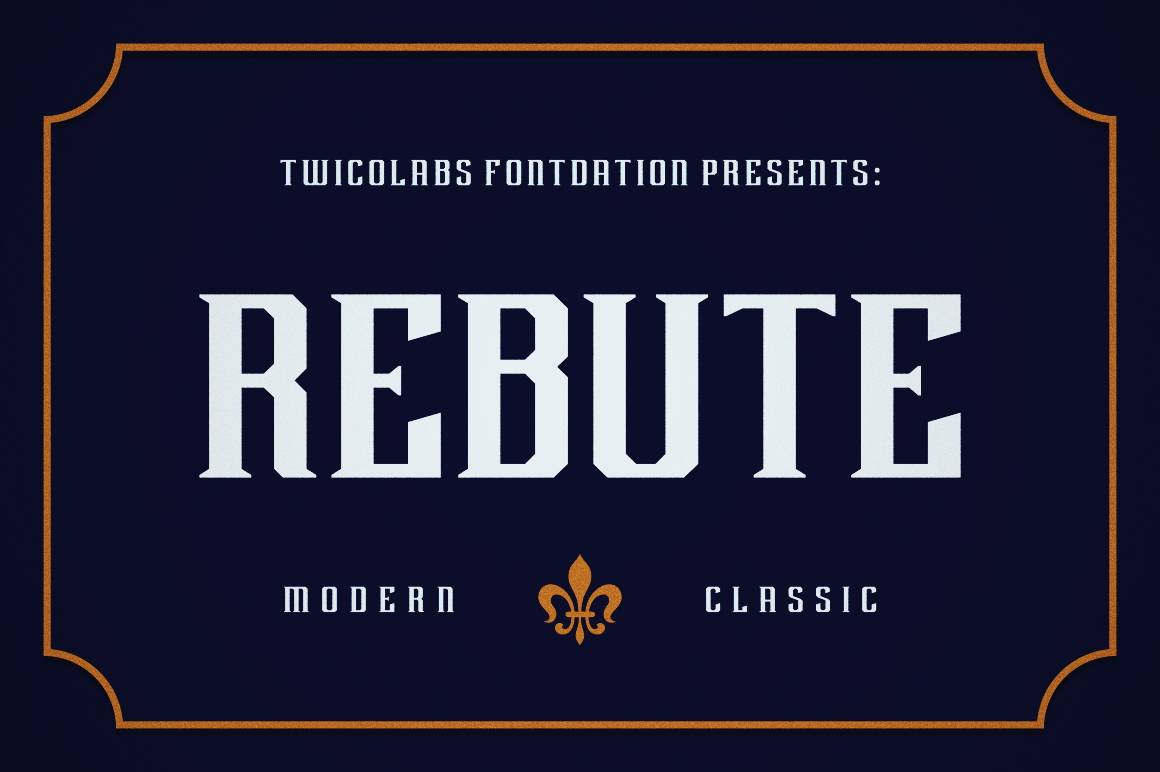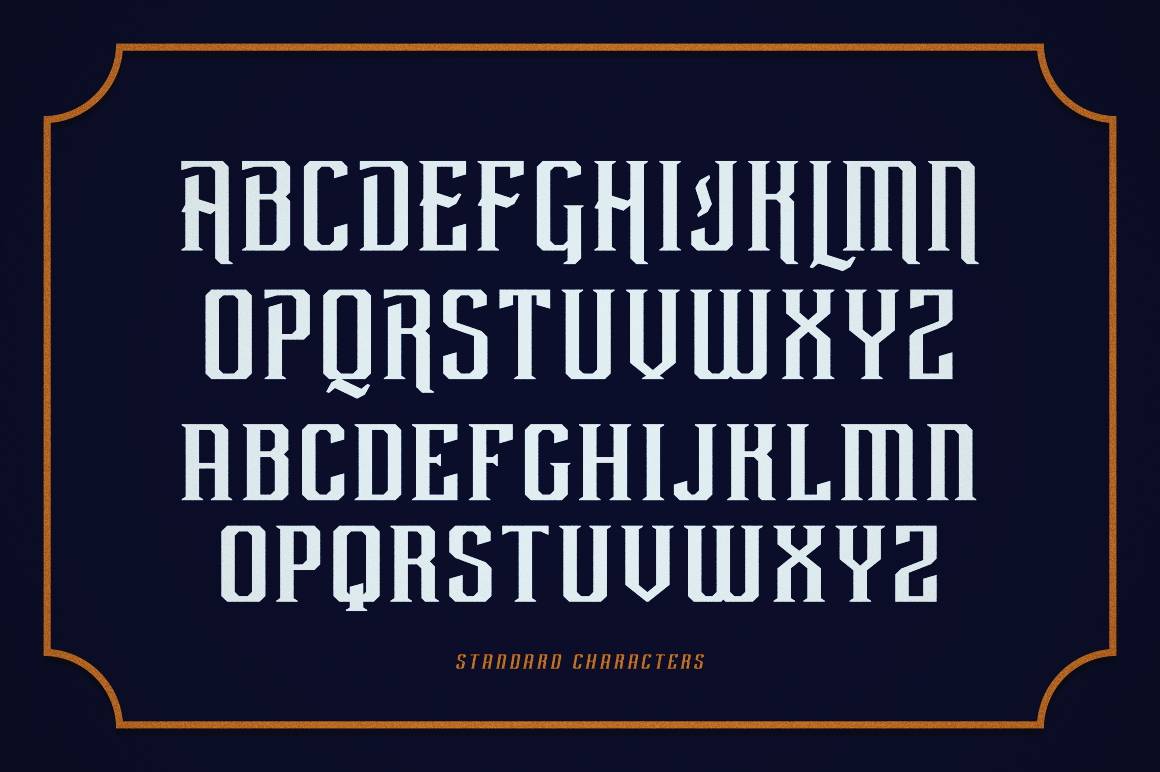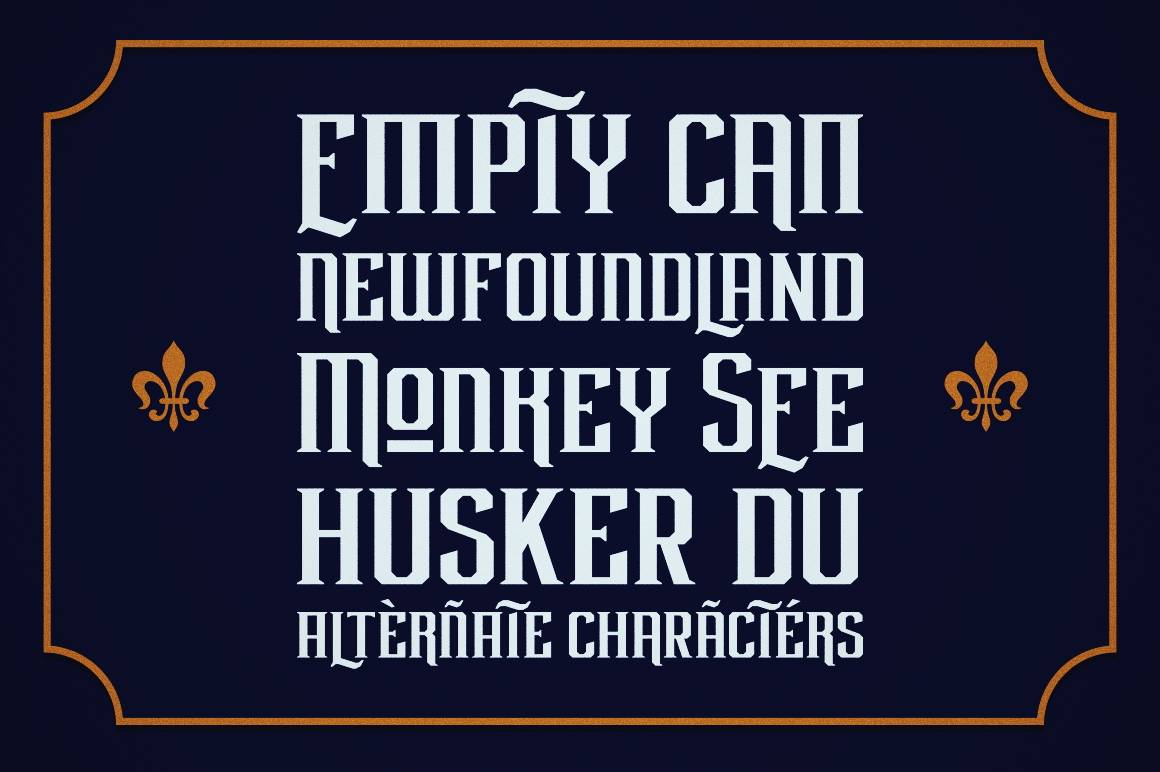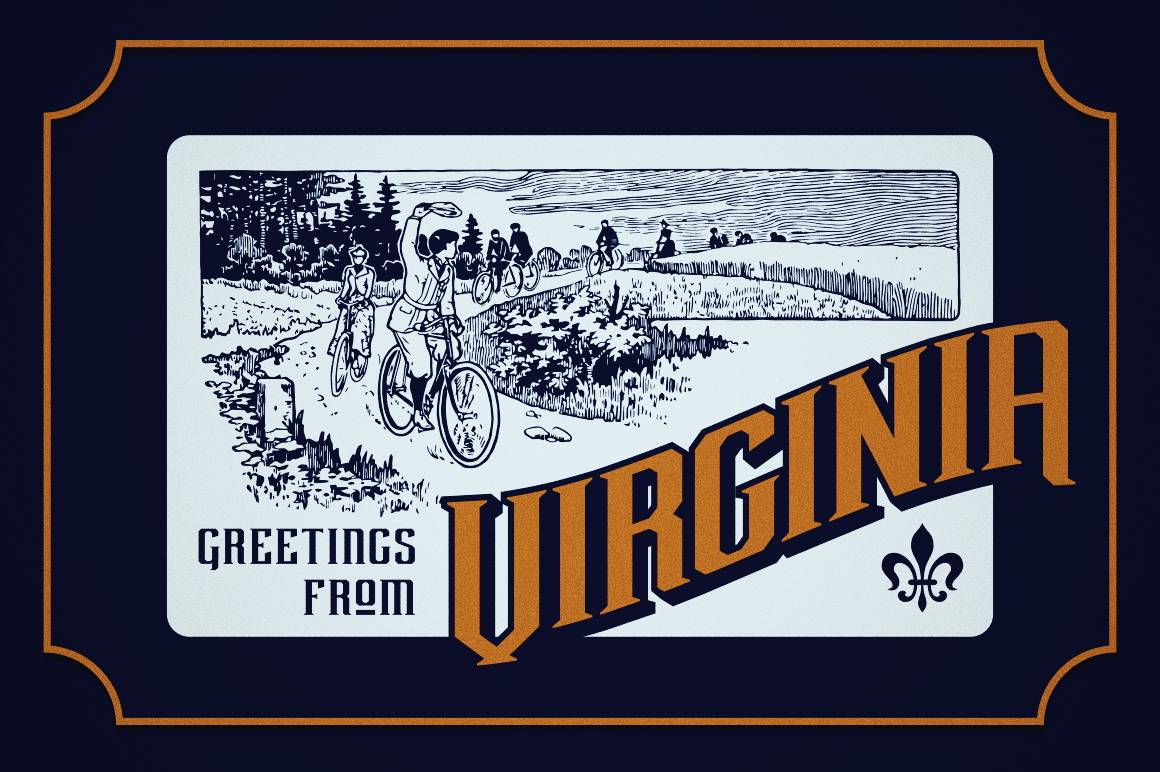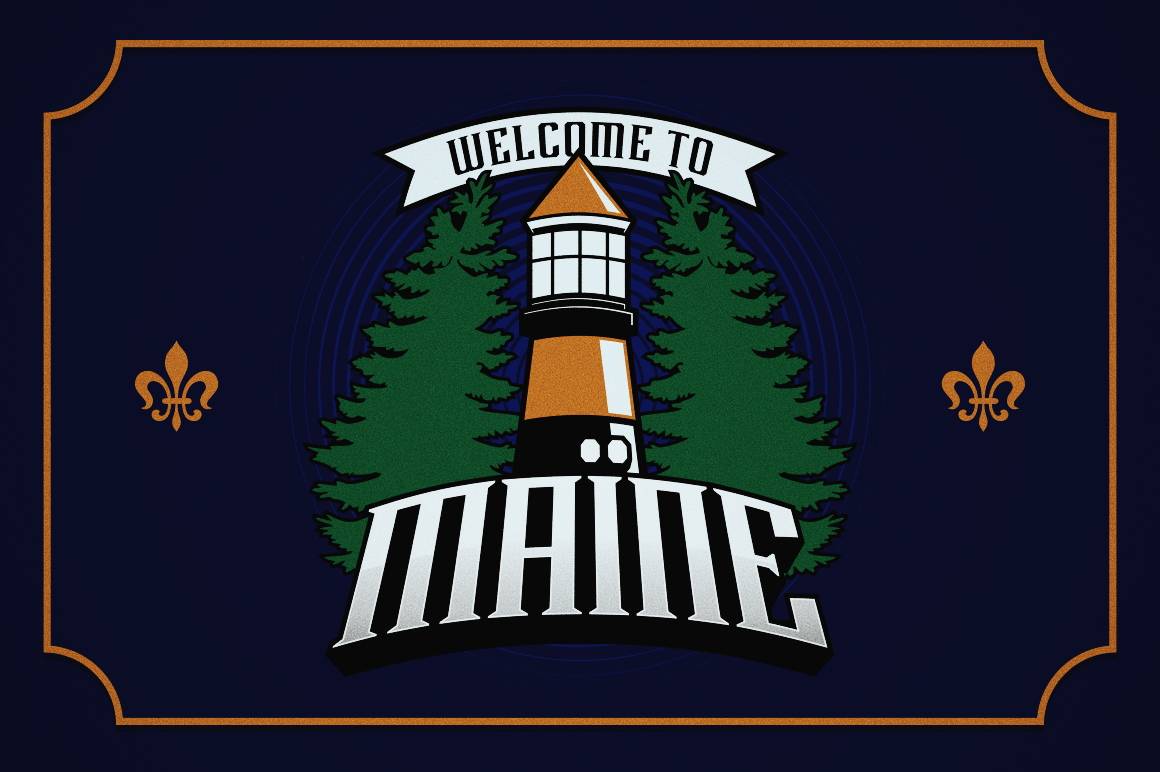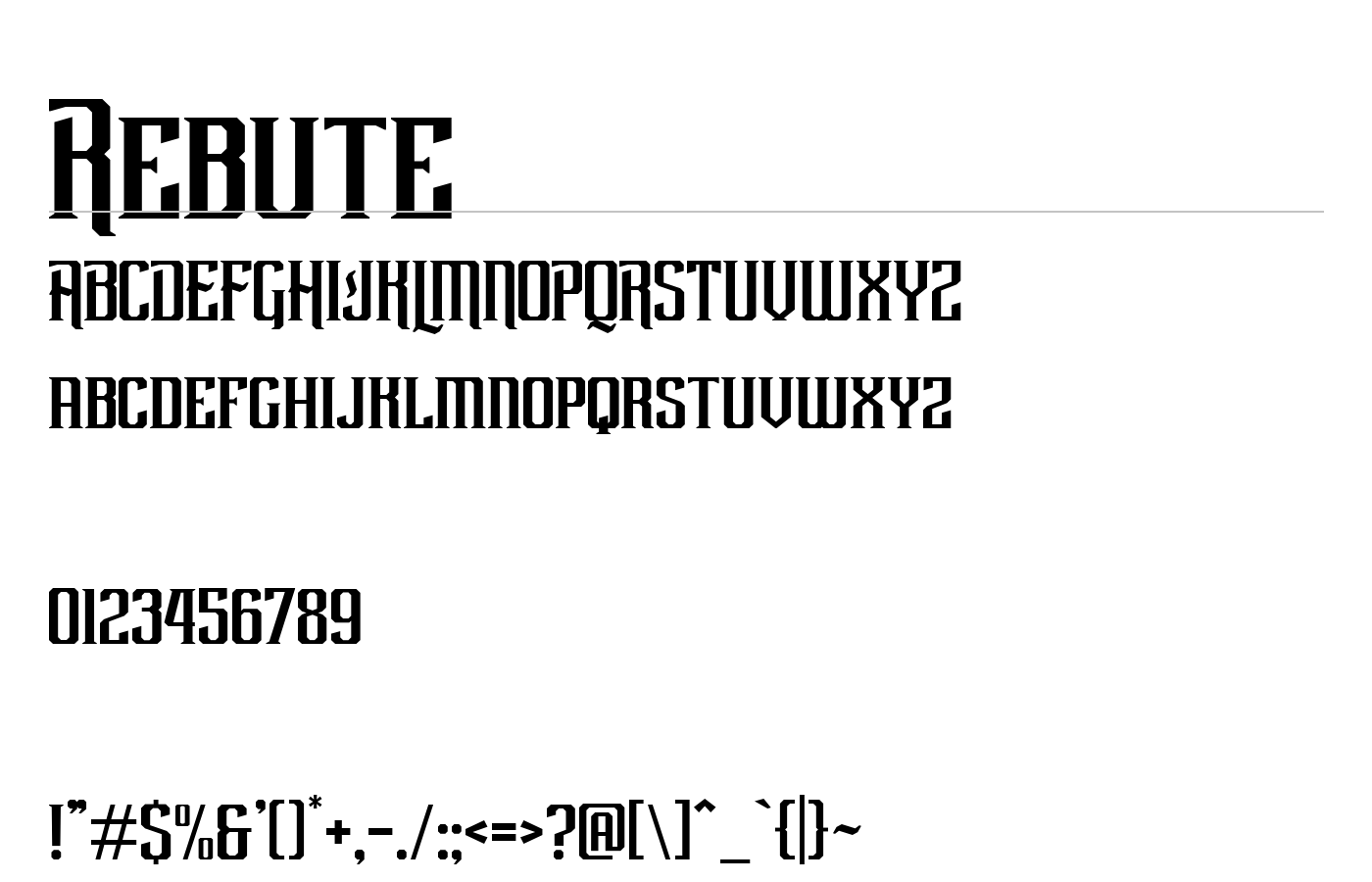
Rebute is a bold, condensed display font with a gothic, vintage-inspired style characterized by sharp edges and strong vertical lines. Its distinctive letterforms and high contrast give it a dramatic and authoritative presence, making it ideal for headlines, logos, and branding that seek to convey strength and classic elegance. This font works especially well in contexts where a bold, impactful statement is needed, such as posters, fashion branding, or editorial designs.
Rebute Font
About Rebute Font
| Font family | Rebute Font |
| Designer | Twicolabs Fontdation |